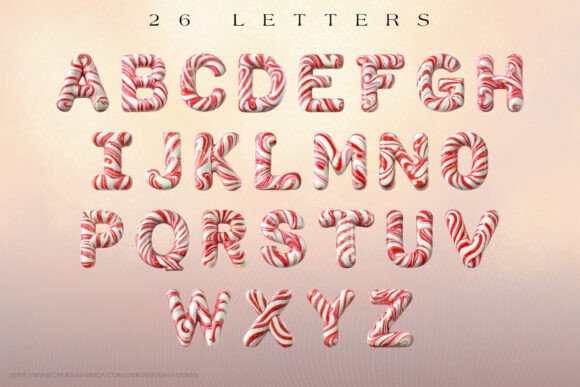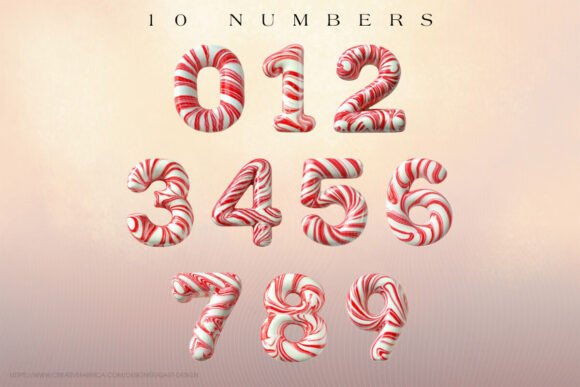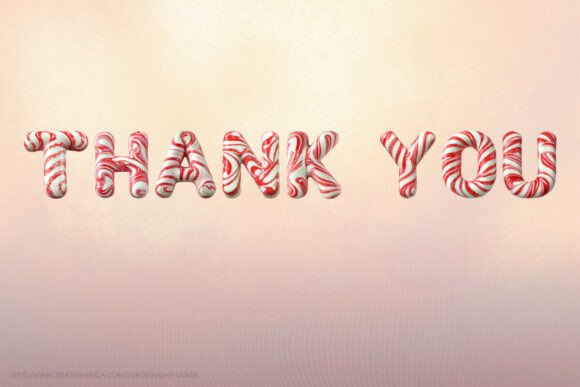
Deck the Halls with Holiday Cheer
As you sit down to plan your holiday projects, do you ever feel a twinge of excitement mixed with a dash of creative block? You’re not alone. We’ve all been there, staring blankly at a blank page or screen, trying to conjure up the perfect festive feel. But what if I told you there’s a way to inject some holiday magic into your designs, right at your fingertips?
Enter the Candy Cane Christmas Alphabet Font, a delightful and festive typeface that’s sure to bring joy to any project. With its merry shade of Christmas red and peppermint candy cane-inspired design, this font is more than just a typeface – it’s a visual feast that screams “Merry Christmas!” With 26 letters and 10 numbers to play with, the possibilities are endless. Whether you’re a seasoned designer or a crafty enthusiast, the Candy Cane Christmas Font is a valuable tool that’s sure to elevate your holiday projects to the next level.
Candy Cane Christmas Font Key Features
- Font Family: Candy Cane Christmas Font is a unique, festive font designed specifically for Christmas-themed projects.
- Unique Characteristics: Features a distinctive candy cane-inspired design with bold, red and white stripes, perfect for adding a festive touch to your designs.
- Characters and Glyphs: Includes a comprehensive set of characters, including uppercase and lowercase letters, numbers, and punctuation marks.
Candy Cane Christmas Font Review
I recently had the chance to work with the “Candy Cane Christmas Font”, and I must say, it’s a sweet addition to any holiday project ✨. Here’s what I liked about it:
- Whimsical charm**: The font has a playful, festive feel to it, perfect for capturing the magic of the holiday season.
- Variety of styles**: The font comes in multiple weights, from light to bold, giving you plenty of options to choose from.
- Easy to use**: The font is well-behaved and easy to work with, even for those who aren’t font experts.
However, I did encounter a few limitations ⚠️:
- Limited language support**: The font seems to be optimized for English, and I had some issues with it rendering correctly in other languages.
- Not ideal for long text**: Due to its decorative nature, the font is best suited for short text snippets, such as headlines or titles.
Overall, I think the “Candy Cane Christmas Font” is a great choice for holiday projects, especially if you’re looking for a playful, whimsical feel. Just be aware of its limitations, and you’ll be all set for a sweet holiday season ✨!
The Candy Cane Christmas Font is perfect for holiday-themed designs, such as Christmas cards, gift tags, and social media graphics. To get the most out of it, use it in combination with bold colors and festive graphics. You can also use it to create a fun and playful atmosphere in your designs.
Q: Can I customize the Candy Cane Christmas Font to fit my specific design needs?
Yes, the Candy Cane Christmas Font is fully editable, allowing you to customize the font to fit your specific design needs. You can use font editing software such as FontLab or FontForge to modify the font’s characteristics, including the letterforms, spacing, and kerning.